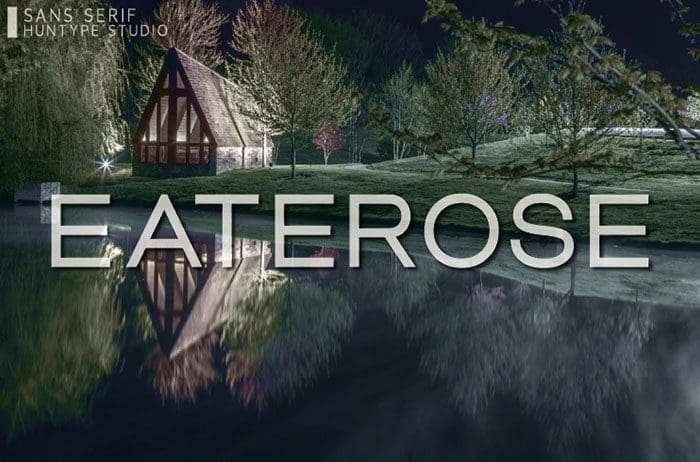
Eaterose is a modern sans serif font. It will complement any design need perfectly with its perfectly balanced mix of smooth and sharp! Thanks to Mas Anis for sharing this font! Take a look at this portfolio for more of his stunning fonts.